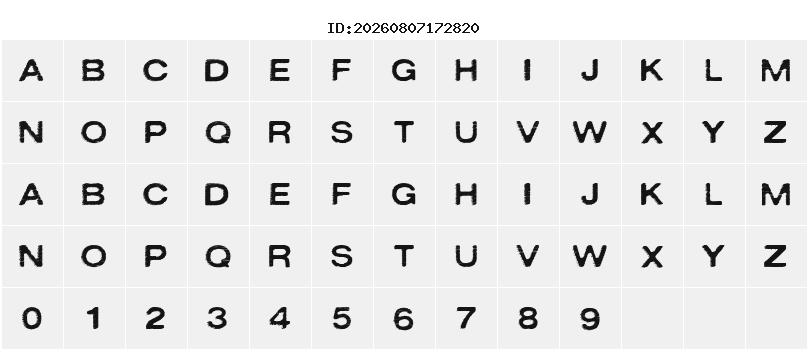
About OXIDISASTER.ttf
OXIDISASTER.ttf is a modern, elegant sans-serif font designed for ultimate readability and visual harmony. Perfect for branding, headlines, web design, and print materials.